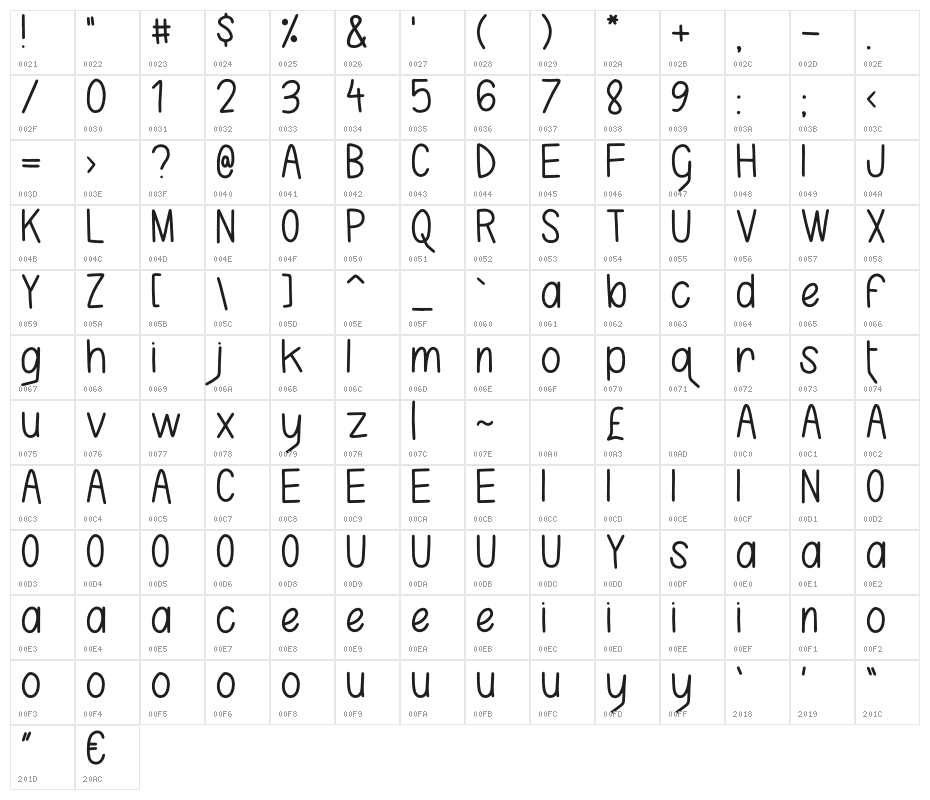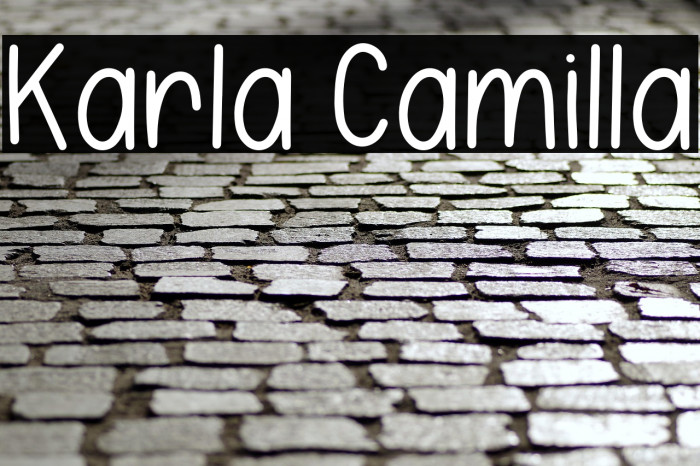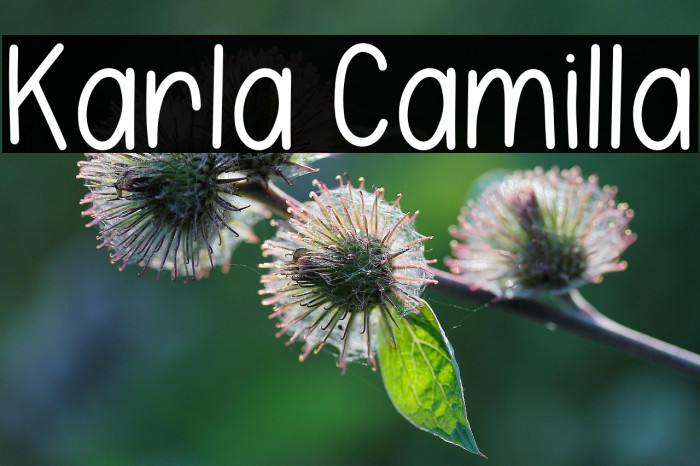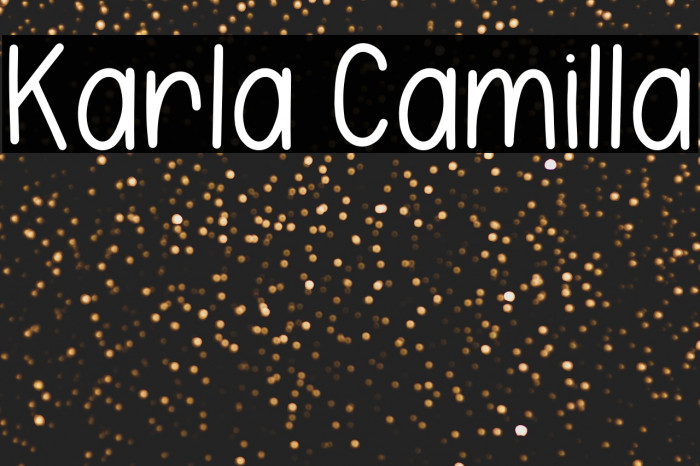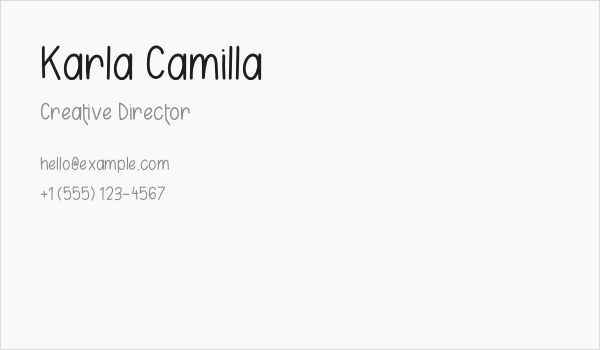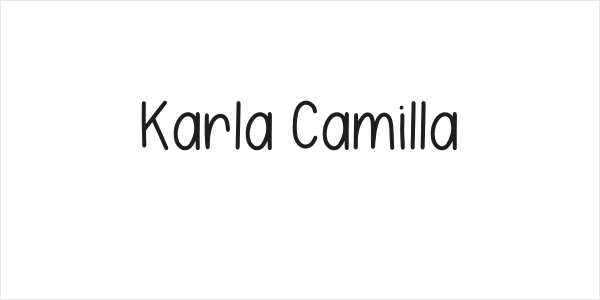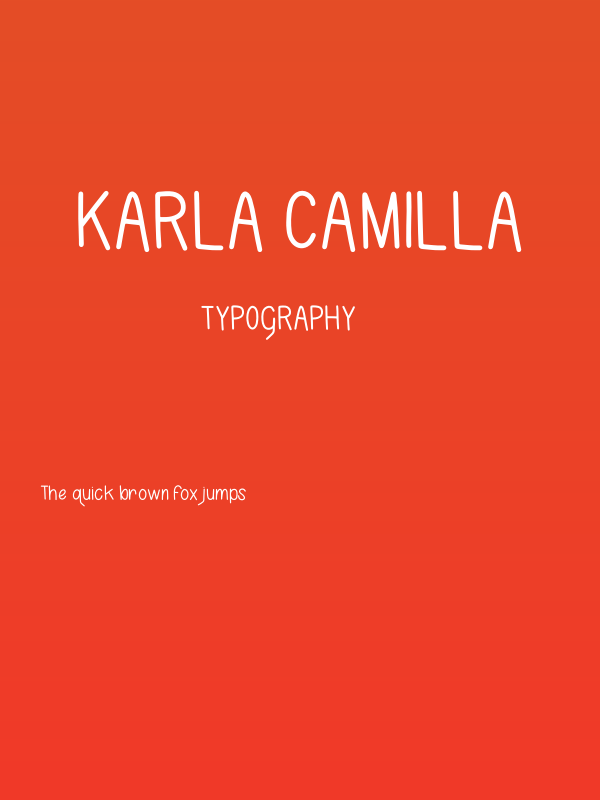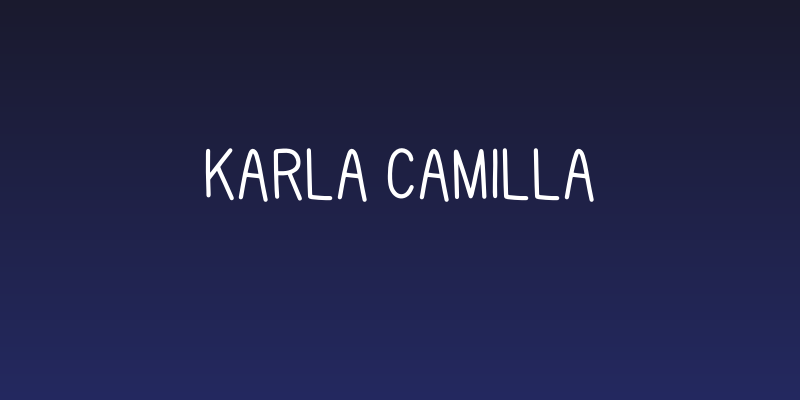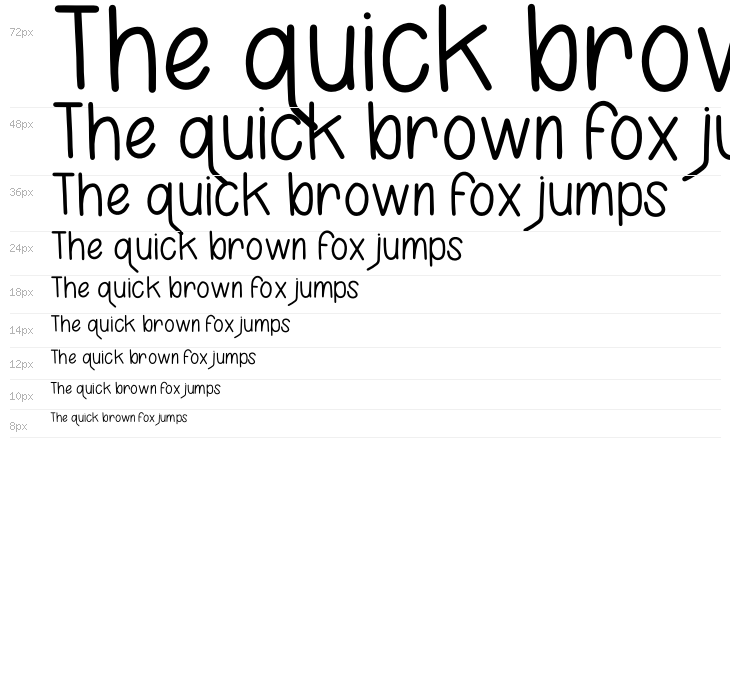
Karla Camilla Font
Karla Camilla Description
This font features a playful and casual handwritten style, characterized by its rounded and slightly irregular letterforms. The uppercase and lowercase letters maintain a consistent flow, with a friendly and approachable appearance. The numerals and special characters complement the overall style, adding to its versatility. Its informal nature makes it suitable for projects that aim to convey warmth and creativity.
| Proposed Projects | Ideal for children's books, greeting cards, playful branding, and informal invitations. |